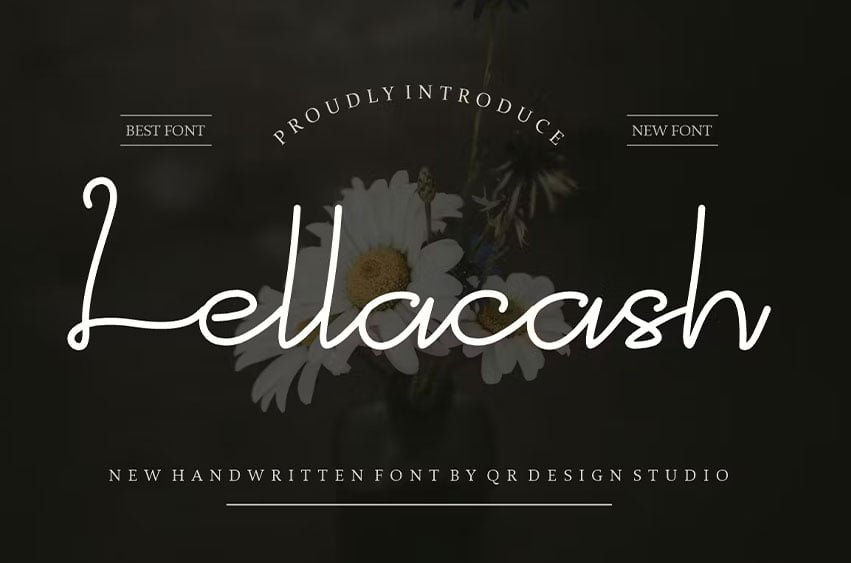
Lellacash Font is a bold and authentic display font. The font is suitable for any branding project like logo, and many more. Outstanding in a wide range of contexts.